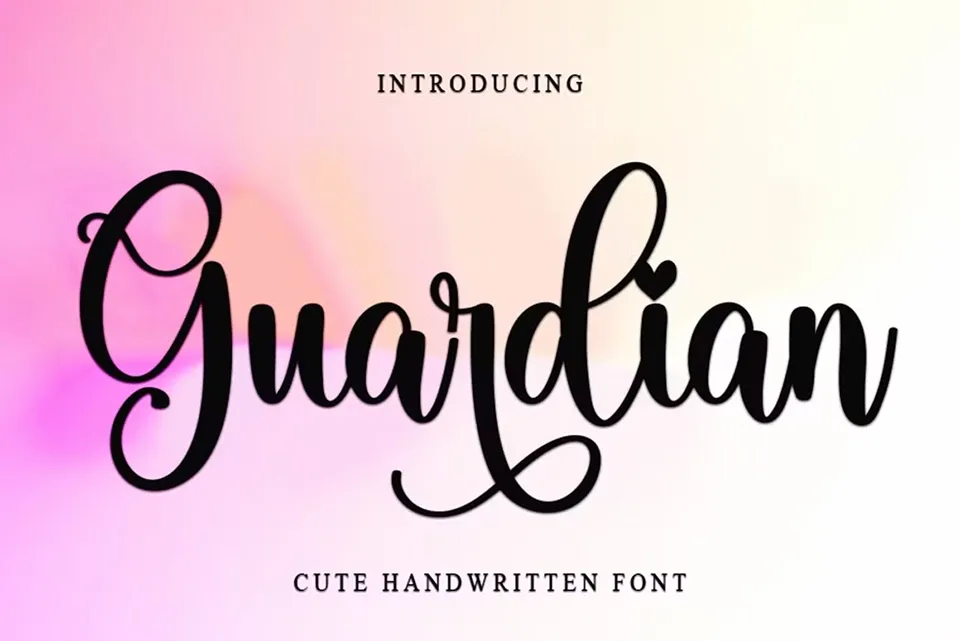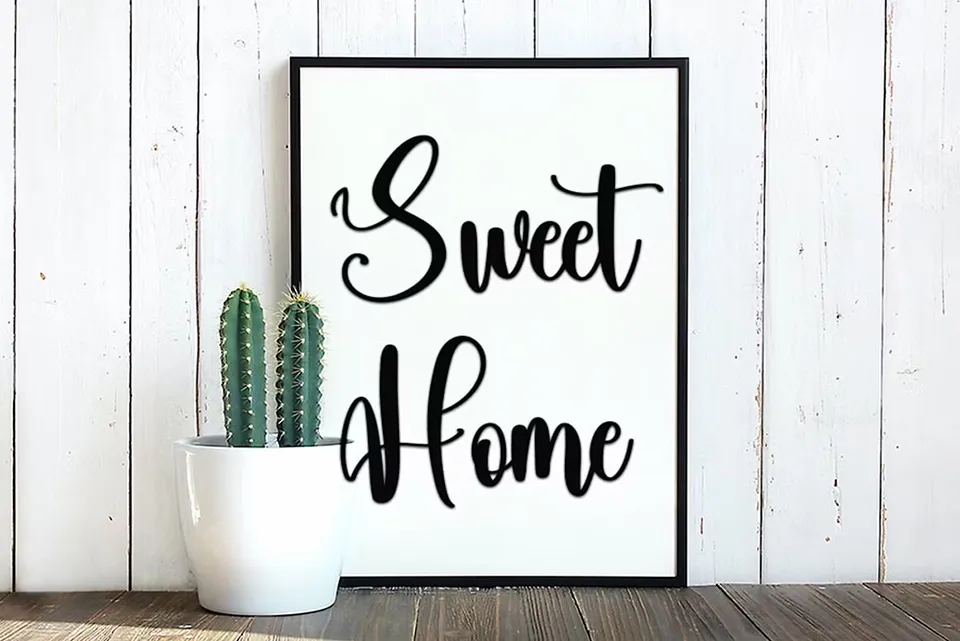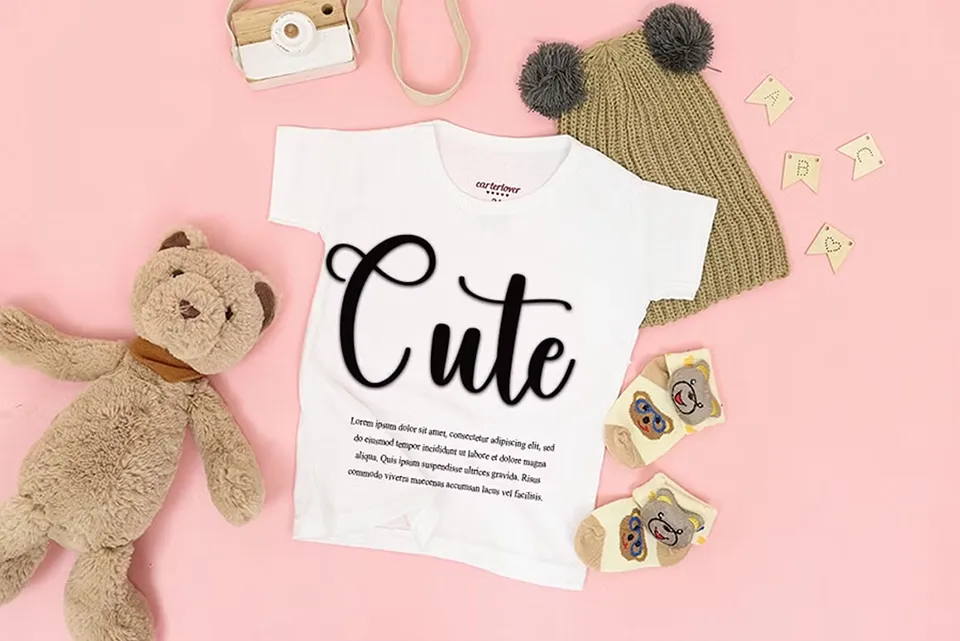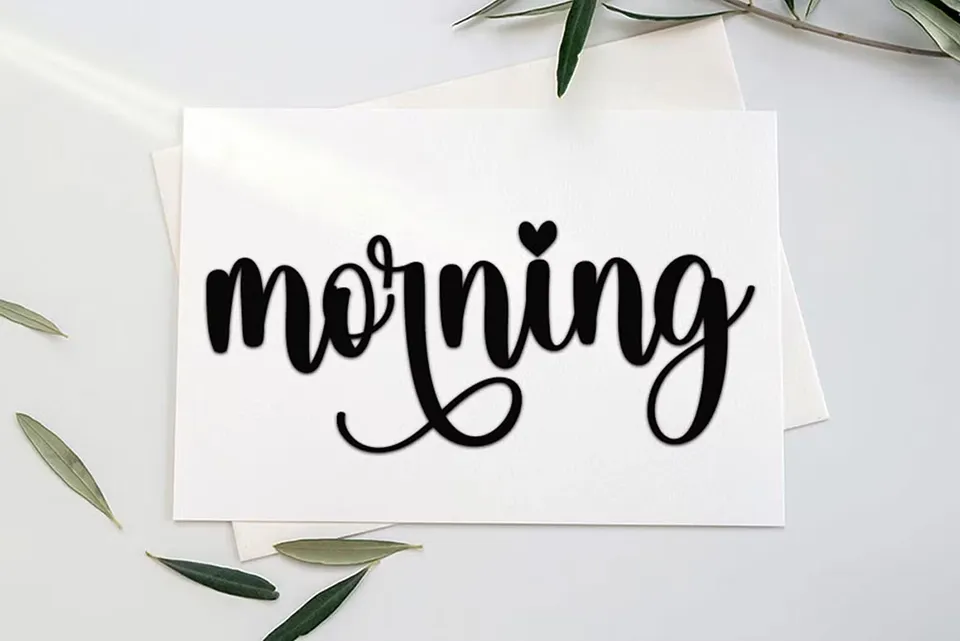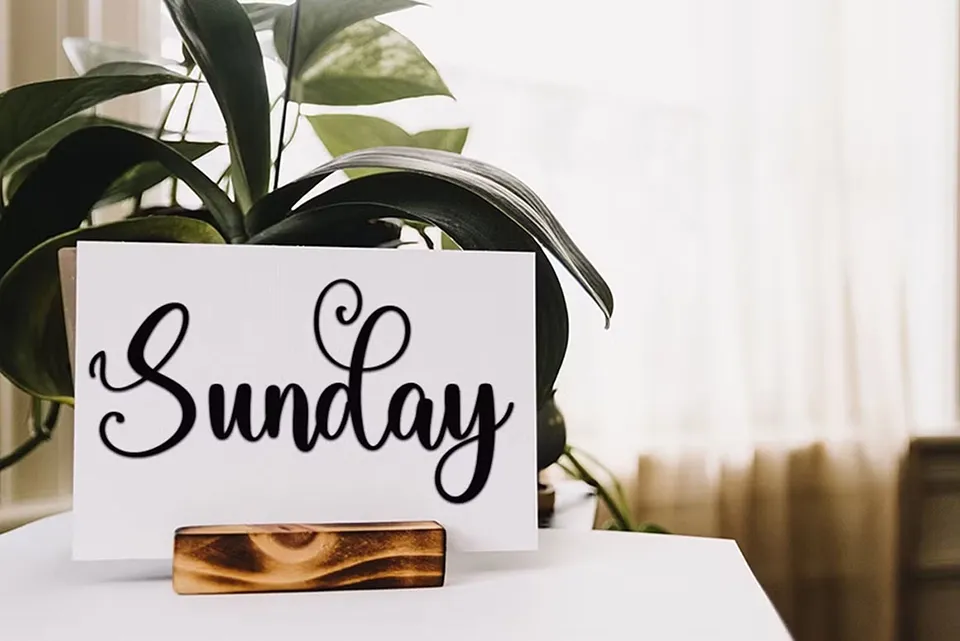
Guardian Handwriting Font
Guardian Handwriting Font is a captivating modern calligraphy script font that exudes elegance and style. With its sweeping and fluid strokes, Guardian Handwriting Font adds a touch of sophistication and grace to any creative endeavor. This enchanting typeface features charming, playful characters that seem to dance along the baseline, making it perfect for logos, wedding invitation cards, branding projects, social media graphics, and various design applications.